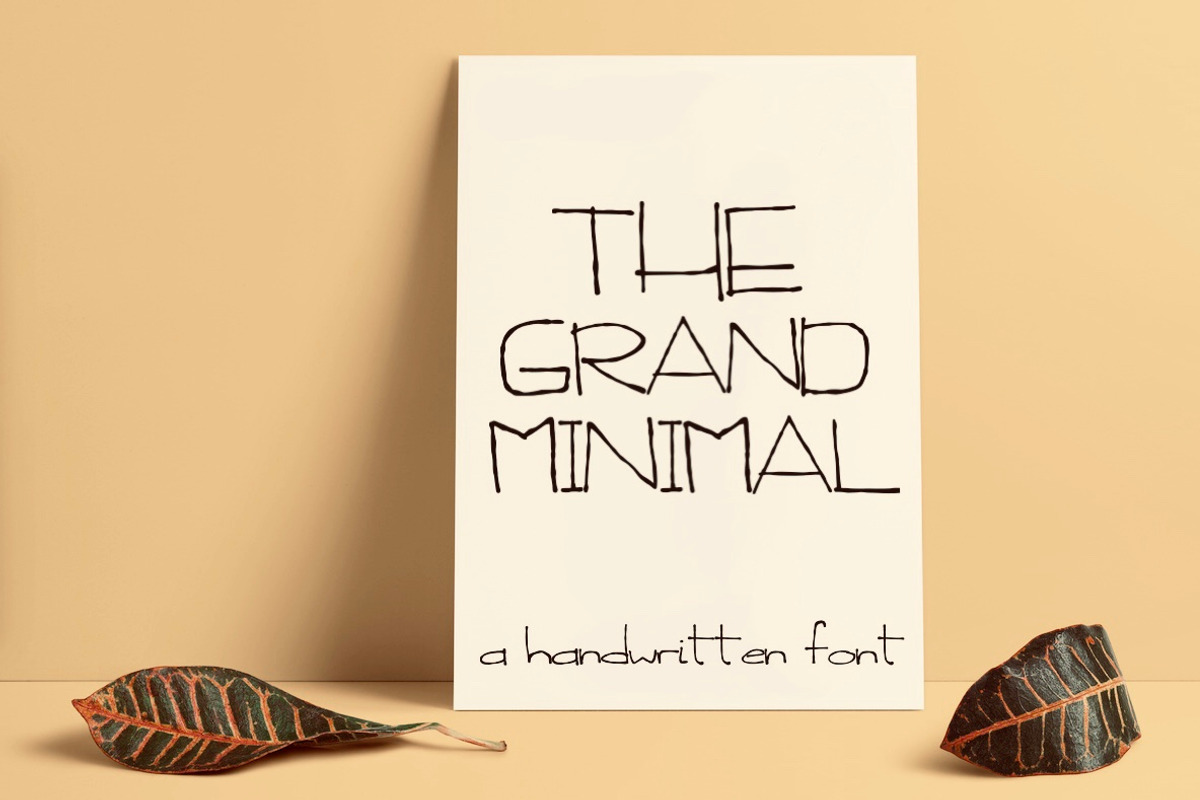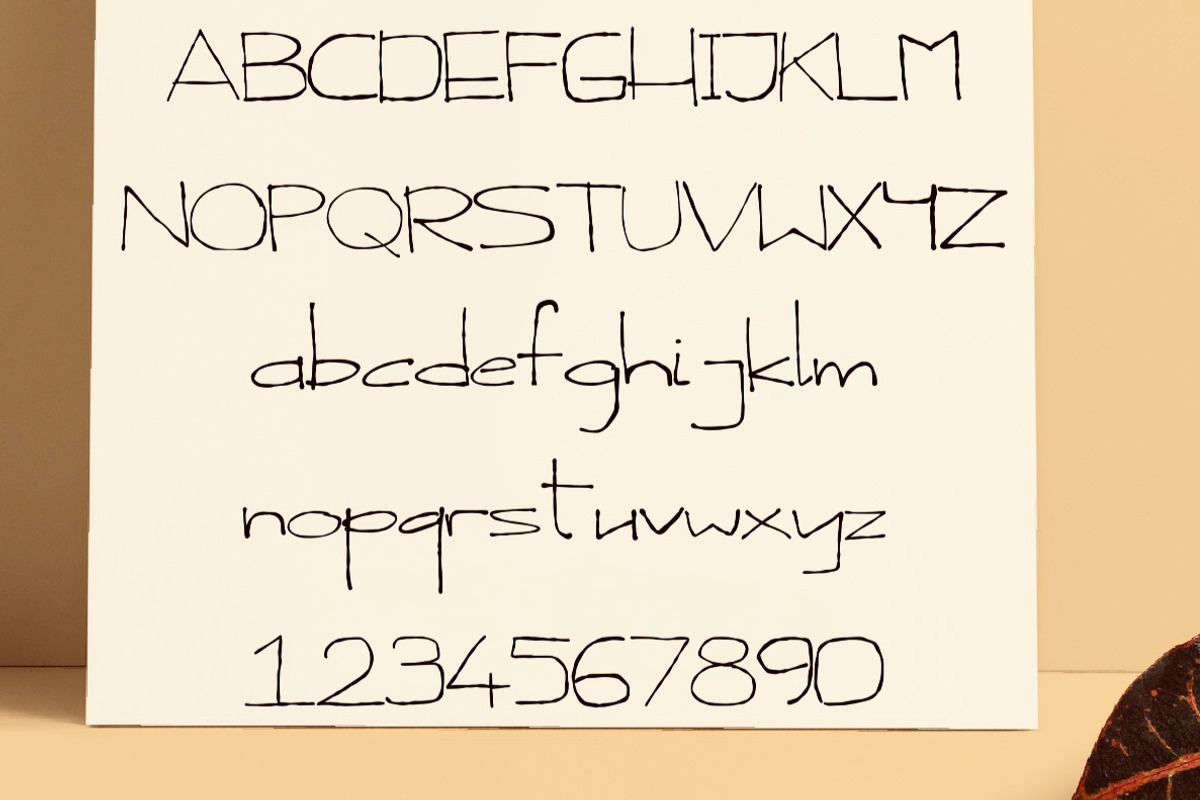
The Grand Minimal Font
minimal, handwritten, all caps font
The Grand Minimal Font by dxxb studio fits naturally into Branding, posters, packaging, typography.